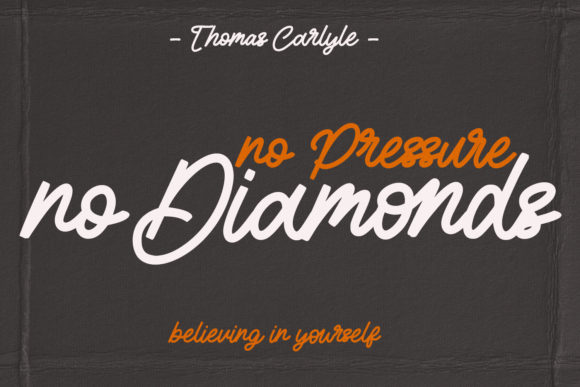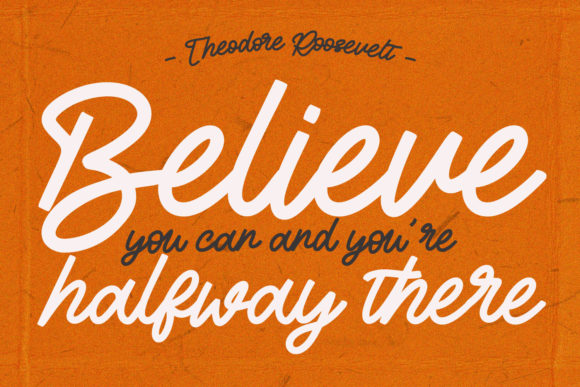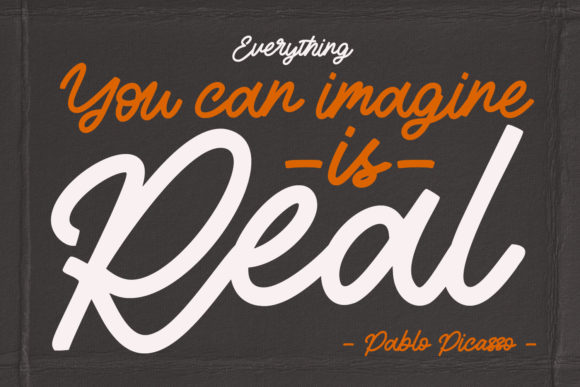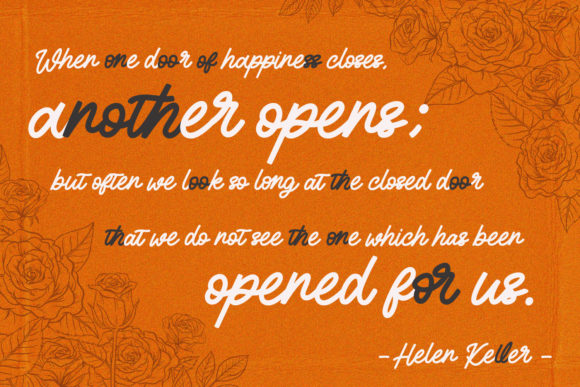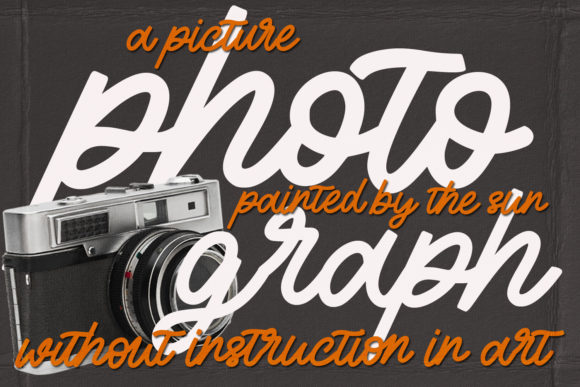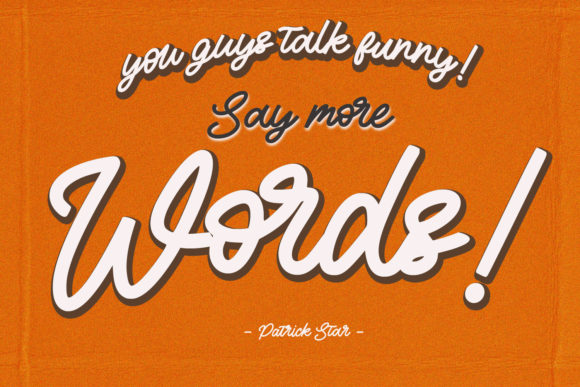
Adding a Touch of Elegance with Honey Rain Font
Remember that moment when you were brainstorming ideas for your next design project, and you wanted to add a dash of sophistication to your typography? You scoured through fonts, trying to find the perfect match, and suddenly, it hit you – a beautiful, vintage script font that would transport your design to a bygone era.
Enter Honey Rain Font, a stunning script font designed to evoke the charm of a bygone era. With its regular mono-line strokes, fun characters, ligatures, and alternates, this font is perfect for adding a touch of elegance to your designs. Whether you’re working on a wedding invitation, a branding project, or a creative blog, Honey Rain Font is sure to impress.
As a designer, you understand the importance of choosing the right font to elevate your work. Honey Rain Font is a valuable addition to any designer’s toolkit, offering a unique blend of style and sophistication that’s sure to delight your clients and audience.
Honey Rain Font Key Features
- Unique Characteristics: Honey Rain Font features a unique blend of elegant and modern design elements, with intricate details and subtle texture.
Honey Rain Font Review
As a designer, I was excited to try out the Honey Rain font. At first glance, it’s a beautiful script font with a touch of elegance. ✨ The intricate details and flourishes add a level of sophistication that’s perfect for high-end branding or luxurious packaging.
The font is highly customizable, allowing you to adjust the weight, spacing, and even the individual letterforms. This level of control is a must-have for any designer who wants to fine-tune their typography. ✨ The font also works well in both digital and print formats, making it a versatile choice for various design projects.
- Beautiful, intricate details
- Works well in both digital and print formats
- May be too ornate for simple or casual designs
- Some characters may be difficult to read at small sizes
- Lack of OpenType features (e.g. ligatures, swashes)
Overall, I’m impressed with the Honey Rain font, but I do think it’s better suited for specific design projects rather than general use. With a little caution and attention to detail, this font can add a touch of luxury to your designs. ⚠️
To get the most out of Honey Rain Font, use it in combination with other creative elements, such as watercolor effects or floral patterns.
Use Honey Rain Font for invitations, wedding stationery, or other special occasion designs.
Honey Rain Font is ideal for:
Baby shower invitations and decorations
Floral-themed designs and packaging
Watercolor-inspired art and graphics
Alternatives to Honey Rain Font for Designers
Great Vibes is a beautiful, elegant script font perfect for creating a romantic and whimsical atmosphere. It’s ideal for wedding invitations, birthday cards, and other special occasions where a touch of sweetness is needed. Compared to Honey Rain Font, Great Vibes has a more refined and delicate look, making it suitable for formal events.
Pacifico is a modern script font with a laid-back, beachy vibe. It’s perfect for creating a relaxed and casual atmosphere, making it ideal for travel brochures, restaurant menus, and other promotional materials. Compared to Honey Rain Font, Pacifico has a more rugged and organic feel, giving it a unique charm.
Carolyna Pro is a sophisticated script font with a touch of elegance and sophistication. It’s perfect for creating a luxurious and high-end atmosphere, making it ideal for fashion brands, luxury hotels, and other premium products. Compared to Honey Rain Font, Carolyna Pro has a more refined and polished look, giving it a professional edge.